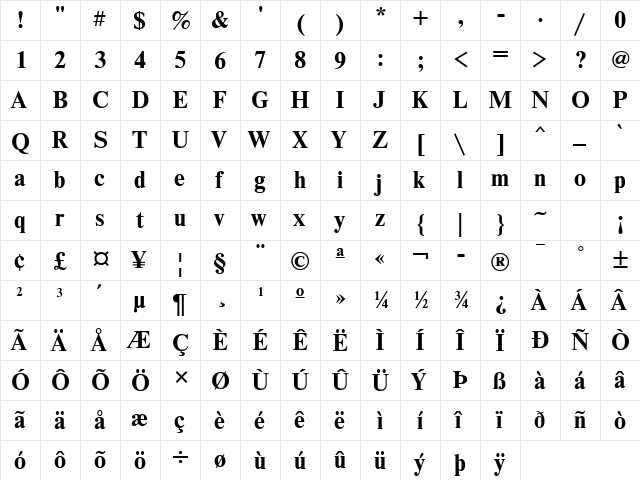
NewtonATT Bold Font Preview
NewtonATT Bold
NewtonATT Bold Font Details
Design Context for NewtonATT Typeface
NewtonATT takes a measured approach to typography — its balanced proportions and neutral character make it a reliable workhorse for both digital and print work. Its bold stroke weight gives it real presence on the page.